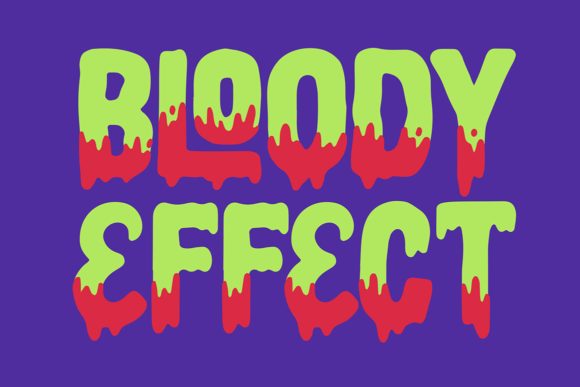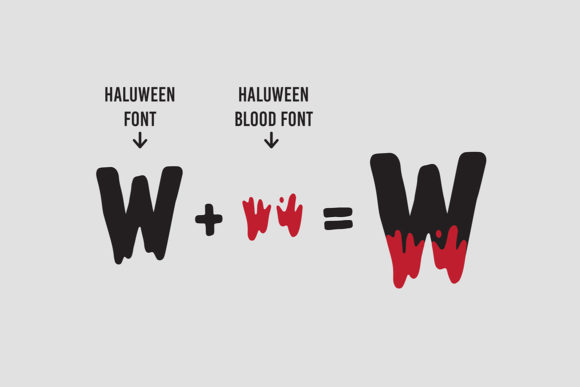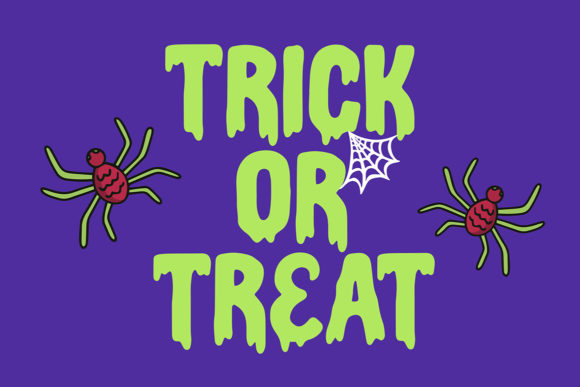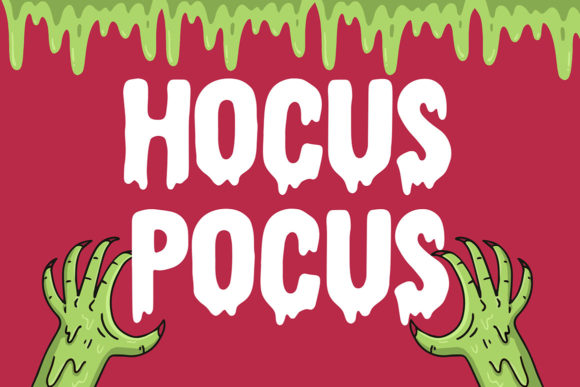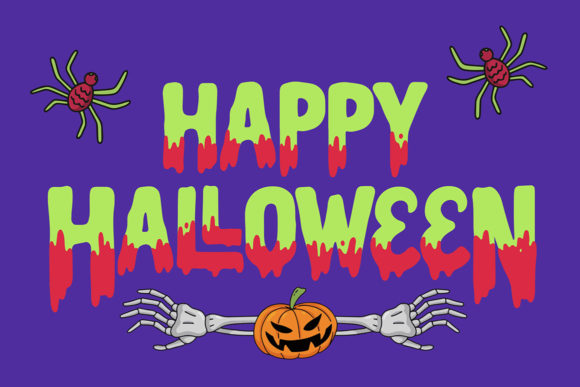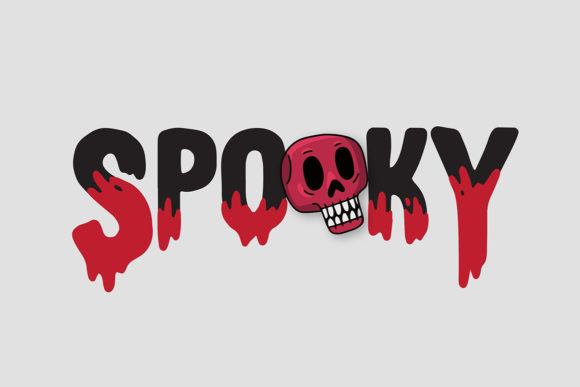
Haluween Font: The Ultimate Addition to Your Spooky Party Decor
Are you tired of using the same old fonts for your party decorations? Do you want to add a touch of spookiness and creativity to your Halloween party ideas? Look no further than the Haluween font! This cool and creepy display font is sure to make your party decorations stand out and leave a lasting impression on your guests.
What is Haluween Font?
Haluween font is a unique and eye-catching display font that is perfect for Halloween-themed parties and decorations. Its creepy and cool design features bold, distressed letters that are sure to add a spooky touch to any party invitation, decoration, or DIY project.
Why Use Haluween Font?
There are many reasons why Haluween font is a great addition to your party decorations. Here are just a few:
- Adds a Spooky Touch: Haluween font is designed to be creepy and spooky, making it perfect for Halloween-themed parties and decorations.
- Instantly Stands Out: The unique design of Haluween font makes it sure to grab attention and stand out from more traditional fonts.
- Versatile: Haluween font can be used for a variety of party decorations, including invitations, banners, and DIY projects.
Creative Ways to Use Haluween Font
There are many creative ways to use Haluween font to add a spooky touch to your party decorations. Here are a few ideas:
- Party Invitations: Use Haluween font to create spooky and eye-catching party invitations that will set the tone for your Halloween party.
- Banners and Signs: Create bold and creepy banners and signs using Haluween font to hang at your party.
- DIY Projects: Use Haluween font to add a spooky touch to DIY projects, such as pumpkin carvings, ghostly decorations, and more.
- Social Media Posts: Use Haluween font to create spooky and eye-catching social media posts to promote your Halloween party.
Tips for Using Haluween Font
Here are a few tips for using Haluween font:
- Use it Sparingly: While Haluween font is eye-catching, it can be overwhelming if used too much. Use it sparingly to add a touch of spookiness to your party decorations.
- Pair it with Other Fonts: Pair Haluween font with other fonts to create a unique and eye-catching look.
- Experiment with Colors: Experiment with different colors to find the perfect combination to match your party theme.
Haluween font is a cool and creepy display font that is perfect for adding a spooky touch to your Halloween party decorations. Its unique design and versatility make it a great addition to any party invitation, decoration, or DIY project. With these tips and ideas, you’ll be able to create a spooky and eye-catching party that your guests will never forget.